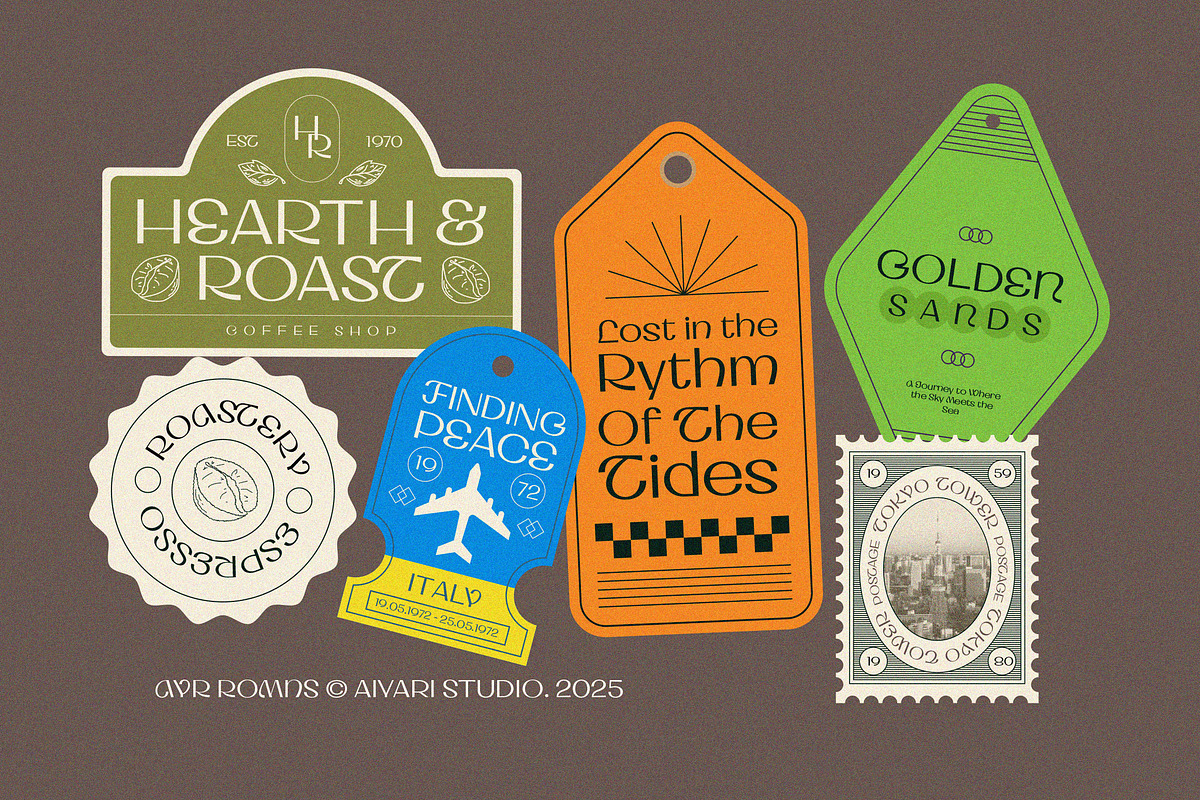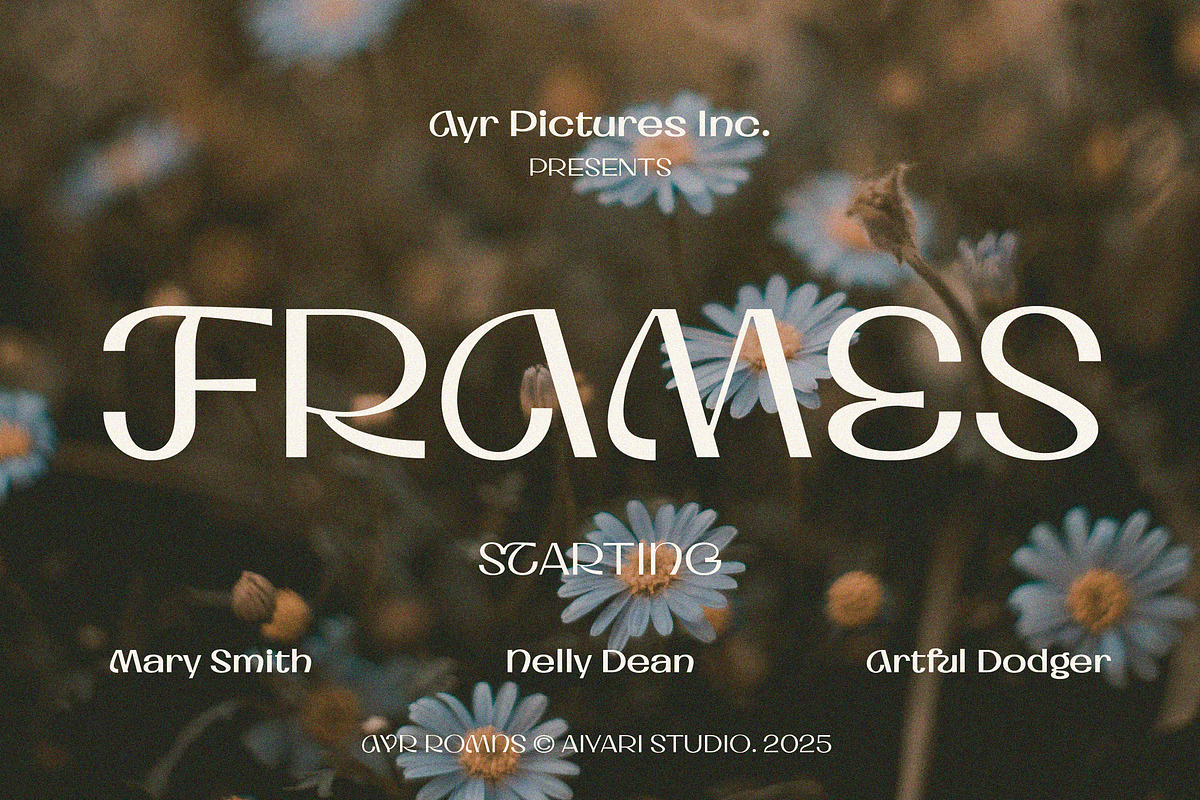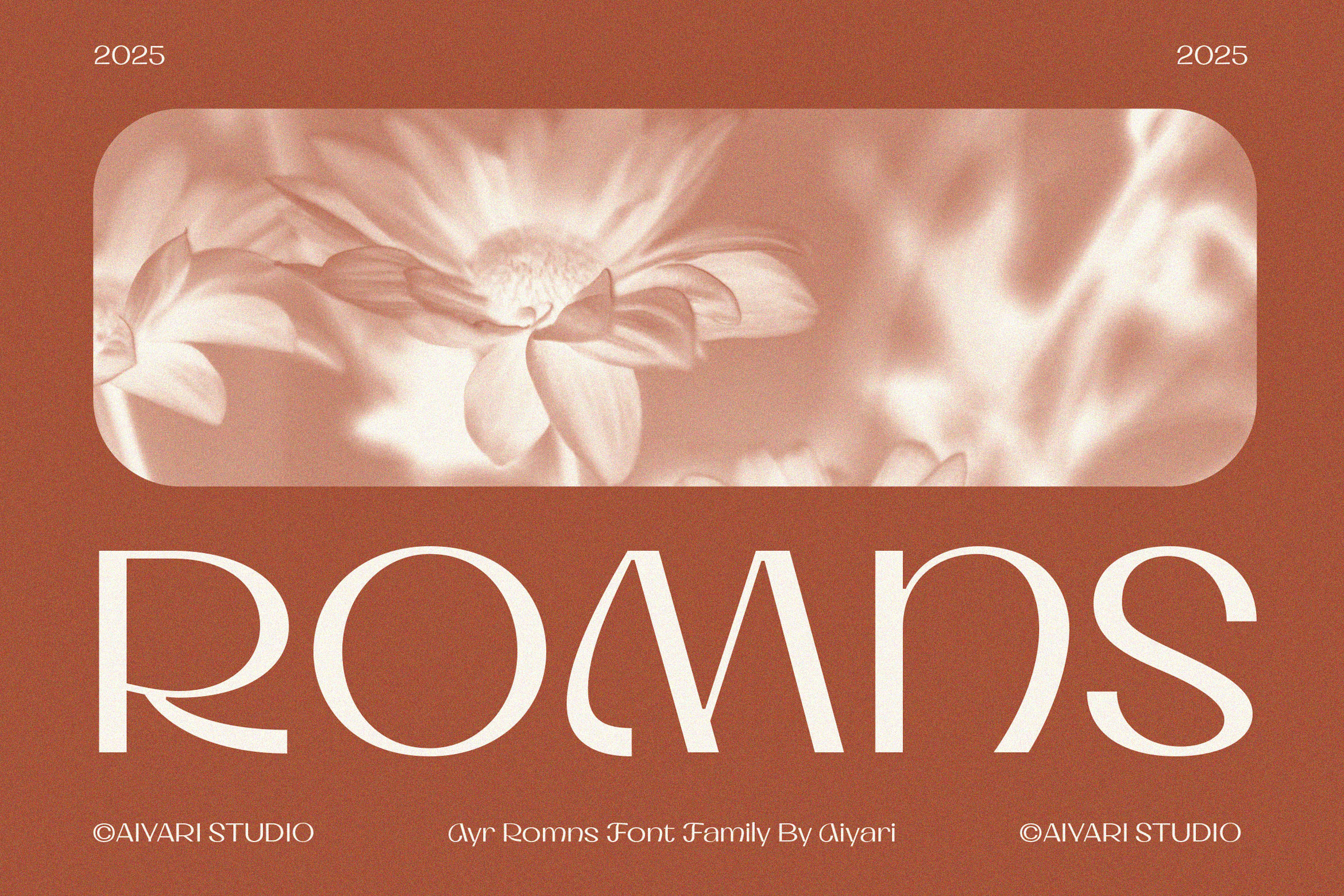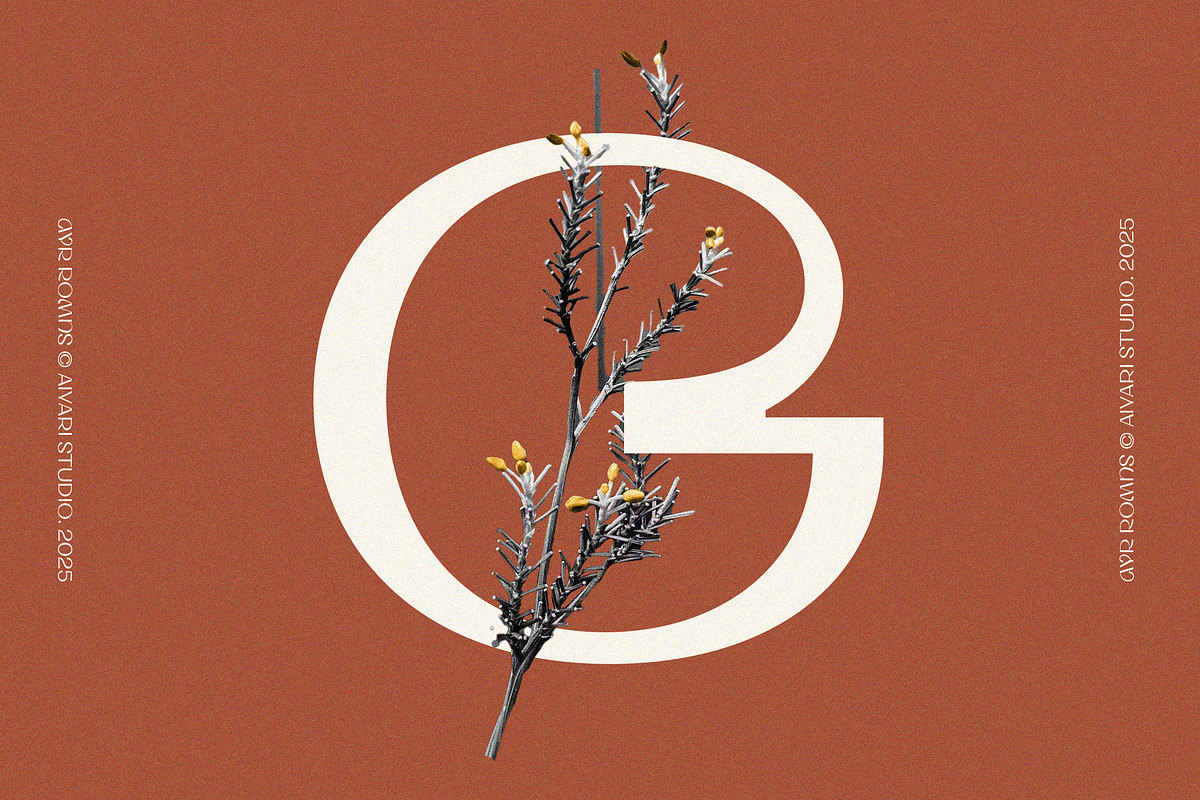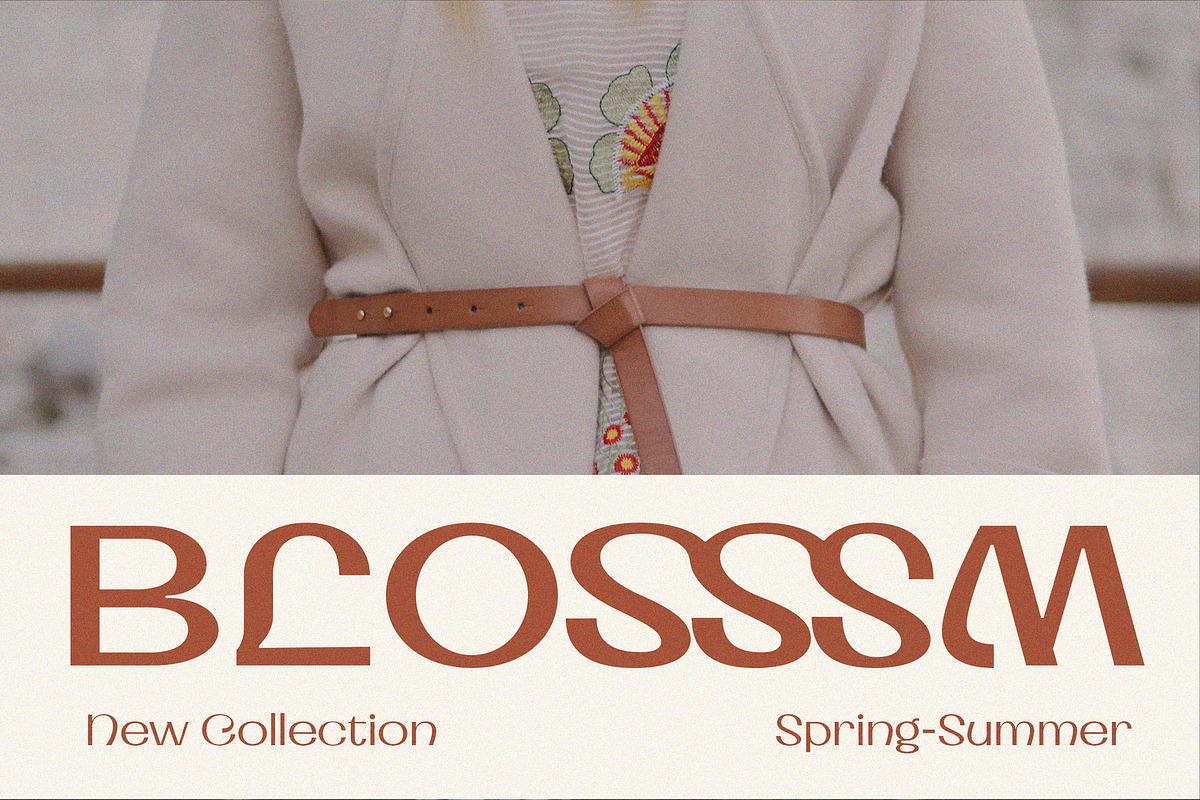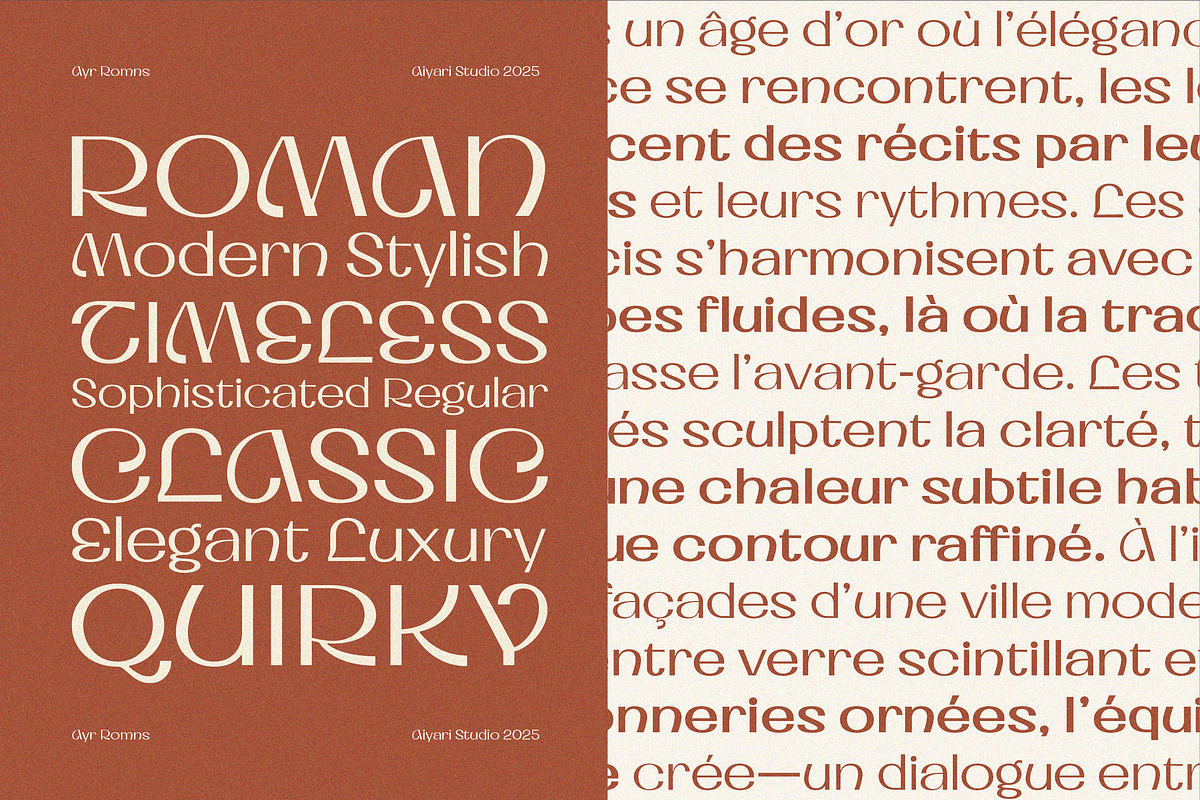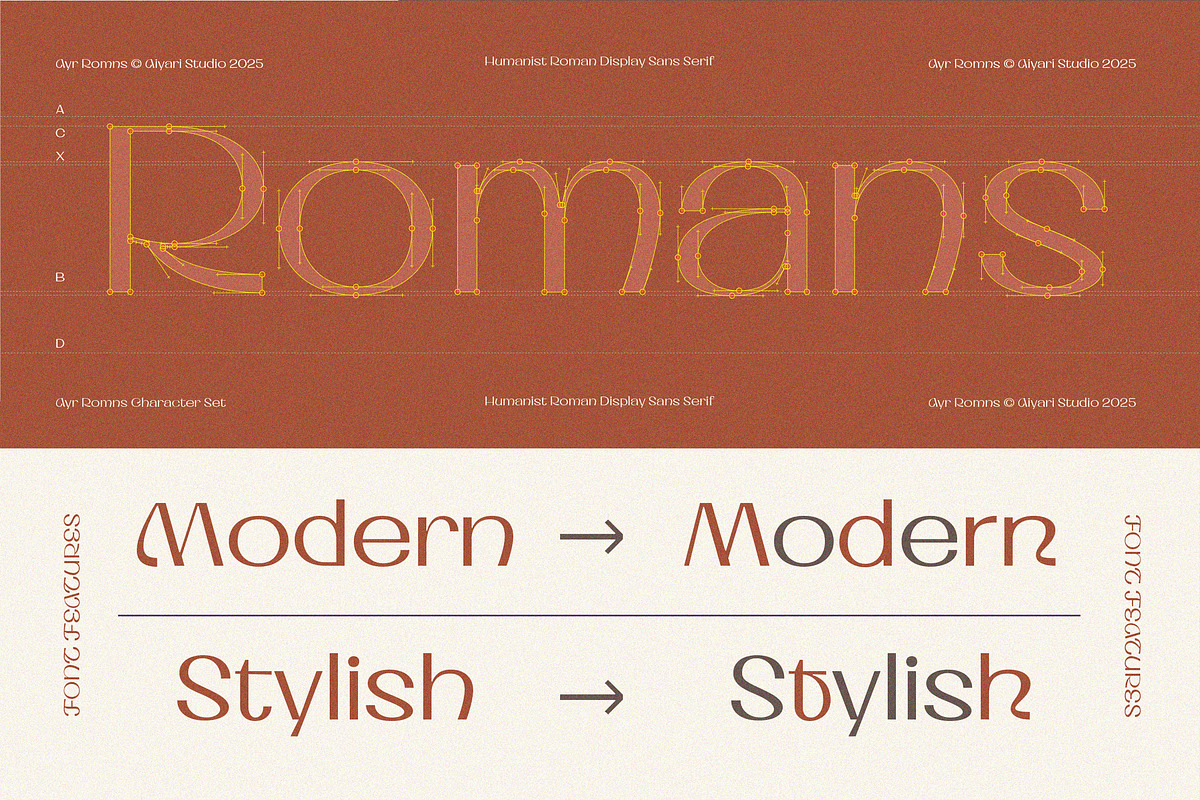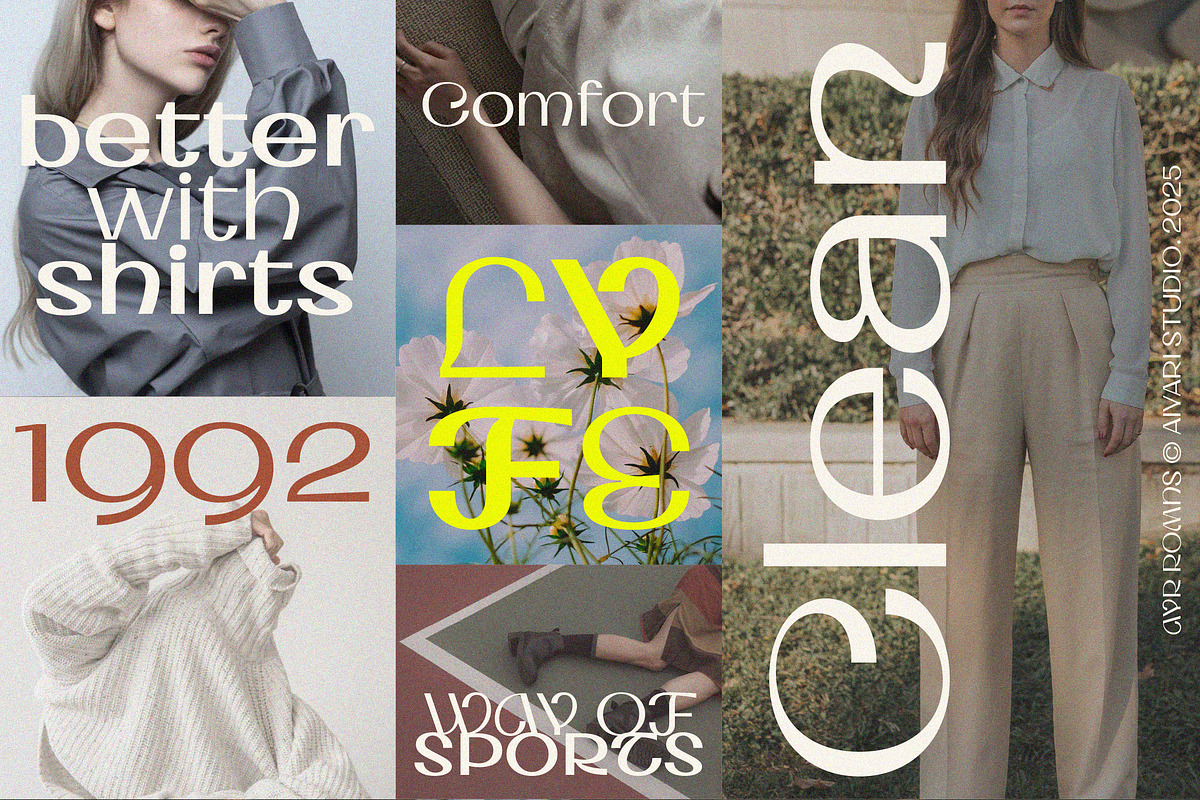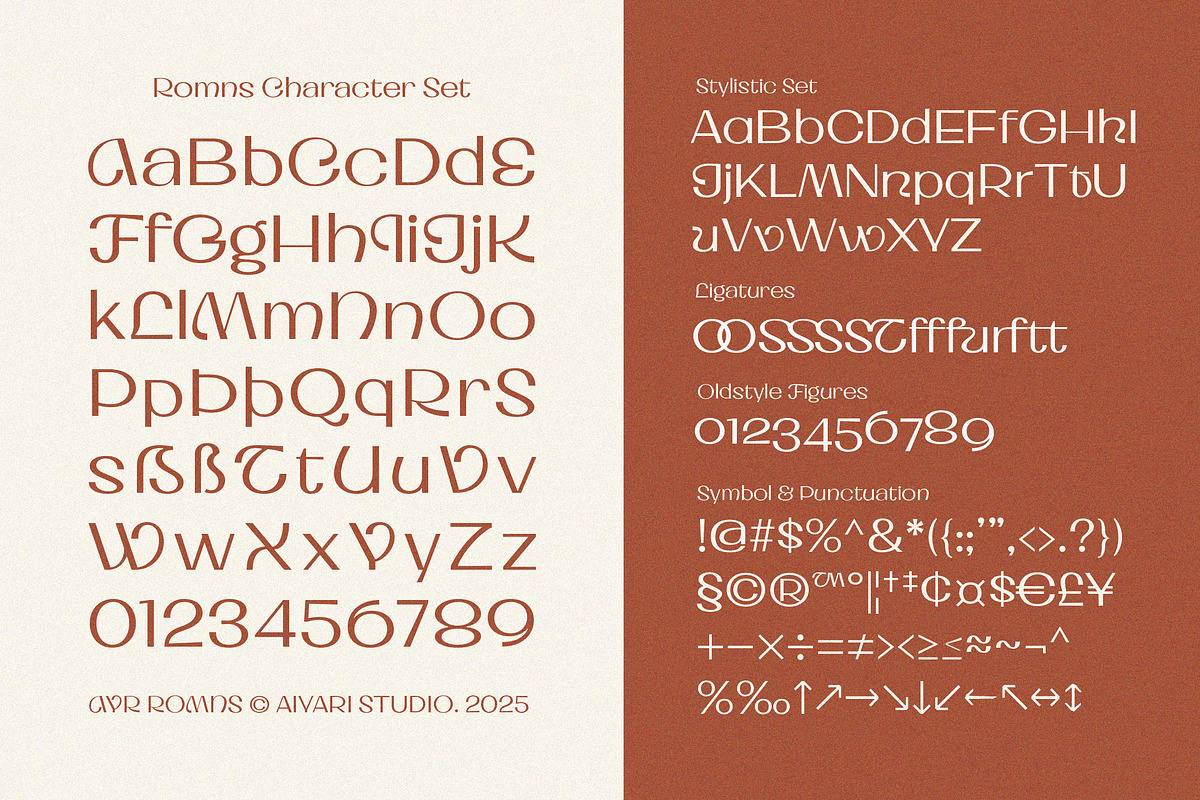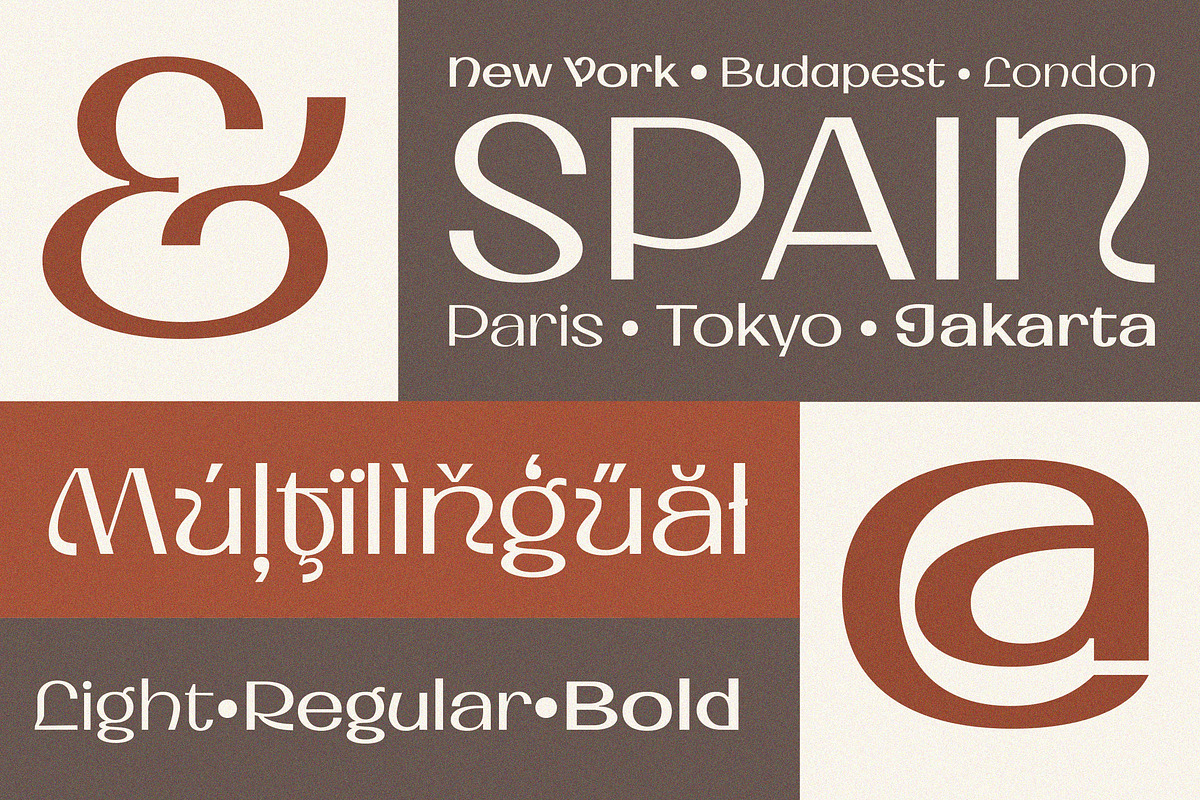
Romns Font Family
Introducing Romns a display typeface inspired by the elegance of Roman letterforms, seamlessly blending influences from the Art Deco and Art Nouveau movements with a touch of modernism and humanist sans-serif aesthetics. Its distinctive shapes and refined details evoke a sense of nostalgia while maintaining a contemporary appeal.
Ideal for logotypes, posters, packaging, book covers, and creative projects that seek a unique yet timeless character, Romns brings a sophisticated yet aesthetic touch to any design.